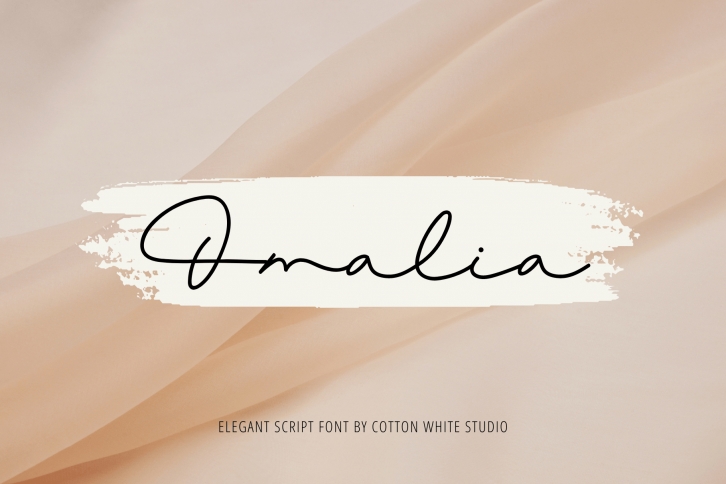
Add a beautiful, handcrafted look to your work with the fabulous Omalia script font! A hand-drawn elegant font that will add a unique touch to your work. Perfect for branding, invitations, blogs, and planners. Adding an authentic hand-lettered touch to your projects couldn’t be easier!